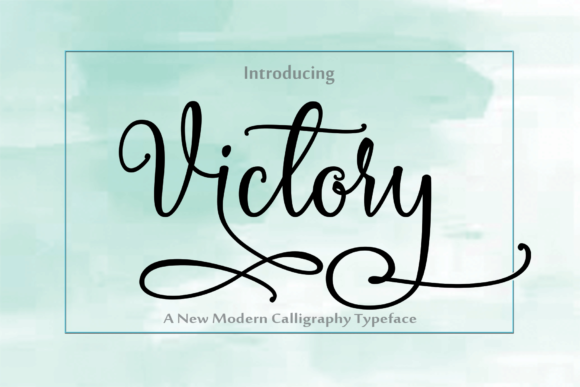
Victory Font: A Handwritten Touch for Web Design
When I was redesigning a boutique online store, I knew the font had to do more than just look good—it had to feel right. The brand was all about creativity and elegance, and I needed a typeface that could carry that vibe without overpowering the design. That’s when I discovered Victory, a handwritten script font from Script Amp. It wasn’t just another font; it felt like a natural fit for the project.
Victory has this soft, organic flow that makes it feel personal and approachable. It’s not too ornate, but it still carries that handmade charm that can elevate a digital layout. I tested it in the hero section of the website, where the main headline would sit above a bold image. The result was striking—Victory added an elegant touch that made the message feel more authentic and engaging.
Victory in Action: Real-World Web Design
One of the first things I noticed was how Victory handled different screen sizes. On desktop, it looked refined and balanced, but on mobile, it still maintained its character without becoming hard to read. That’s crucial for a website that needs to work across devices. I used it for the main heading of the homepage, paired with a clean sans serif for the body text. The contrast was perfect—Victory drew attention without competing with the rest of the content.
I also tried it on a product landing page, where it worked well as a decorative accent over images. It didn’t get lost in the visuals, and it added a sense of personality to the design. For the call-to-action buttons, I used a smaller size of Victory, which gave the buttons a subtle yet stylish edge. It wasn’t overwhelming, but it still stood out enough to guide the user’s eye.
Readability and User Experience
Handwritten fonts can be tricky when it comes to readability, especially on small screens or against busy backgrounds. But Victory struck a good balance. I tested it on dark backgrounds and found that it remained legible without needing extra spacing or adjustments. On light backgrounds, it still held up well, though I preferred using it at larger sizes for optimal clarity.
For mobile layouts, I kept Victory reserved for headings and short phrases. Using it for long paragraphs would have been a challenge, but as a display font, it excelled. It helped create visual hierarchy by making key elements stand out, which is essential for guiding users through a website.
Pairing Victory with Other Fonts
One of the smartest moves I made was pairing Victory with a simple sans serif font for body copy. This created a nice contrast that made the design feel modern and professional. The handwritten style of Victory complemented the clean lines of the sans serif, giving the site a cohesive yet dynamic look.
I also experimented with pairing it with a serif font for a more editorial feel. That worked well for blog headers and feature sections, where a bit of sophistication was needed. But for most of the site, the combination with a sans serif felt more natural and functional.
Using Victory in Different Digital Projects
Victory isn’t just for websites. I’ve used it in social media graphics, email newsletters, and even digital ads. Its versatility makes it a great choice for any project that needs a touch of personality. Whether it’s a creative portfolio, a coaching website, or a product landing page, Victory adds a unique flair that other fonts might not offer.
For a course sales page, I used Victory in the headline and subheadings. It helped convey the idea of inspiration and creativity, which aligned perfectly with the course’s theme. The font’s elegance made the content feel more trustworthy and polished, which is important for converting visitors into students.
Considerations Before Implementation
Before using Victory on a live site, I checked the available styles and weights. It had multiple options, which made it easier to use in different contexts. I also made sure it supported the languages needed for the project, which is often overlooked but important for global audiences.
Webfont availability was another factor. I confirmed that Victory was available in standard web formats, which meant it could be loaded quickly without slowing down the site. That’s crucial for user experience and SEO performance.
Commercial licensing was straightforward, which made it easy to use on client projects. I didn’t have to worry about restrictions or additional fees, which is a big plus for designers who need flexibility.
Final Thoughts on Victory
Victory is more than just a font—it’s a tool that can help shape the identity of a digital project. Its natural, handwritten style brings a sense of warmth and authenticity that many other fonts lack. Whether you’re designing a boutique store, a coaching website, or a creative portfolio, Victory offers a fresh and elegant option that can enhance your design work.